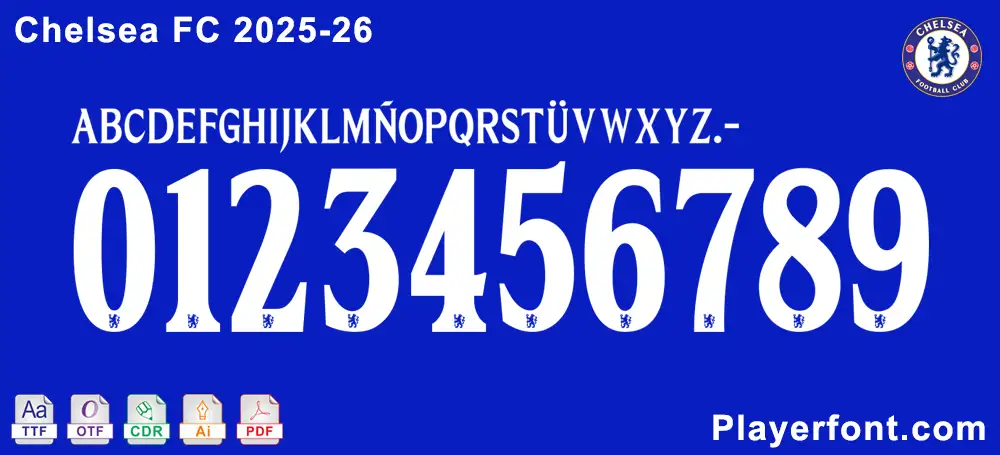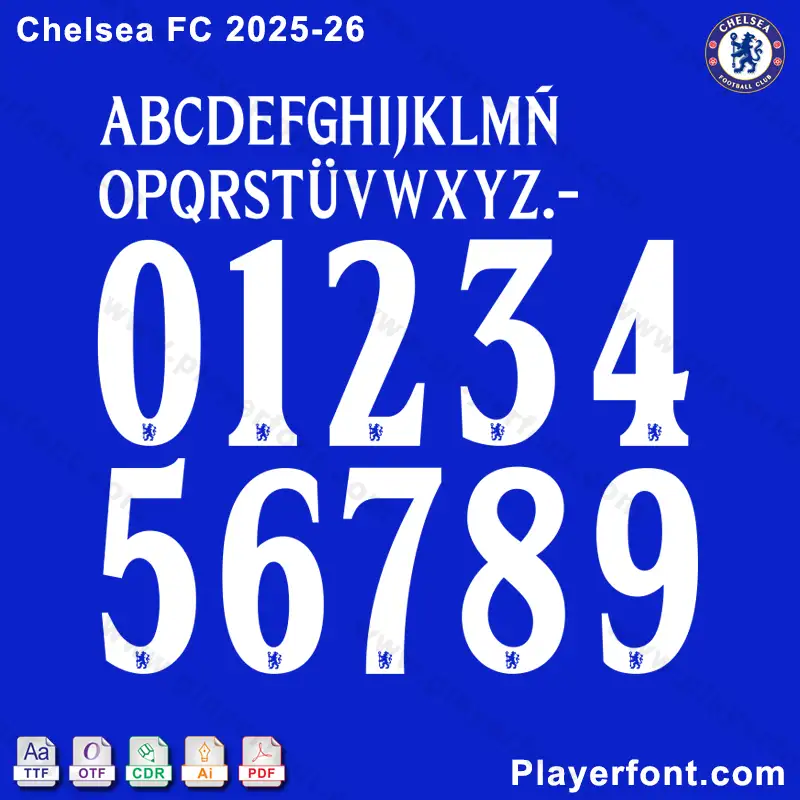
Chelsea FC 2025-2026 Font – Complete Typography Pack
Elevate your designs with the authentic Chelsea FC 2025-2026 font, available in high-quality digital formats. Perfect for fans, designers, and businesses creating custom jerseys, posters, logos, and merchandise.
✅ Official Style – Matches Chelsea FC’s 2025-2026 branding.